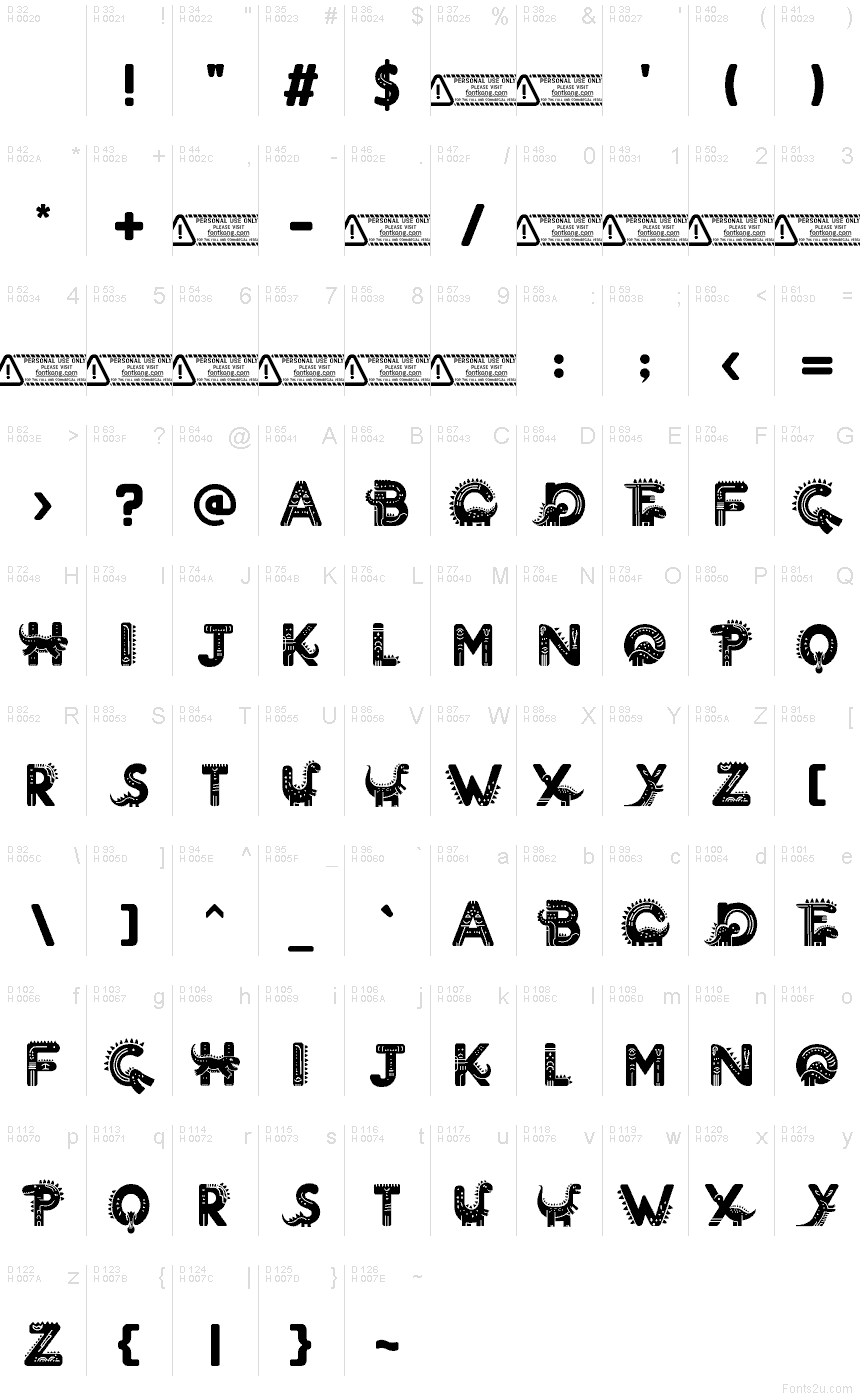
Dino Horn font by Kong Font is a free display decorative font with bold weight. Whimsical and illustrative, its intricate patterns and thematic elements add breathtaking decorations that make it stand out. Dino Horn is definitely one of a kind!
Use this special style in cartoon posters, children’s book covers, storybooks, comic magazines, greeting cards, animated title scenes, print ads that grab attention immediately!